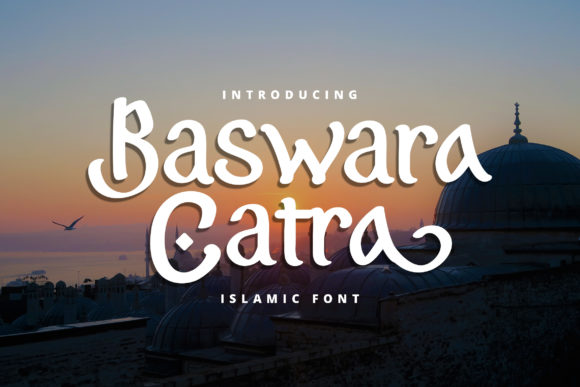
Baswara Catra Font: Elevating Small Business Branding
When I first started my small-batch candle business from my kitchen table, I thought the scent was all that mattered. I quickly learned that before a customer can smell a product, they have to fall in love with how it looks. My early labels were functional but forgettable, printed in standard system fonts that made my handmade goods look like generic craft fair items rather than premium boutique products. The turning point came when I decided to invest in better typography and discovered Baswara Catra, a flowing and unique handwritten font that completely transformed my brand’s visual identity. Choosing the right Script Handwritten typeface wasn't just an aesthetic decision; it was a strategic business move that helped me communicate quality, warmth, and authenticity before a customer ever lit a wick.
Baswara Catra for Product Packaging and Label Design
Integrating Baswara Catra into my packaging design process taught me that Fonts are not merely decorative elements but essential tools for storytelling on physical products. When designing labels for glass jars and textured paper boxes, readability and personality must coexist perfectly. This specific script font offers a delicate balance of elegance and approachability that is often missing in digital-first typefaces. For my lavender and sage collection, the flowing ligatures of Baswara Catra mimicked the organic curves of the botanicals inside, creating an immediate subconscious connection between the visual design and the product experience. Unlike rigid display fonts, this handwritten style feels personal, as if I had written each label by hand, which reinforces the artisanal value proposition crucial for small businesses competing against mass-market brands.
However, using such a distinctive typeface on packaging requires practical consideration regarding size and contrast. I found that Baswara Catra works best as the primary focal point for product names or short taglines rather than dense ingredient lists. On a three-inch round label, the intricate swashes remain legible only when given adequate breathing room and paired with high-contrast background colors. When printing on uncoated kraft paper, the ink spread can sometimes soften fine details, so testing print proofs at actual size became a non-negotiable step in my workflow. This attention to typographic detail turned simple packaging into a tactile brand touchpoint that customers frequently photograph and share, effectively turning my product labels into free user-generated content marketing.
Using Baswara Catra for Wedding Invitations and Stationery Art
Expanding my business into custom stationery required a versatile asset, and Baswara Catra proved ideal for creating gorgeous wedding invitations and beautiful stationary art that command higher price points. Clients seeking bespoke paper goods are often overwhelmed by generic template options, so offering a unique handwritten font helps differentiate my services in a saturated market. The romantic, fluid nature of this typeface lends itself naturally to formal event collateral, yet it avoids the stuffy, outdated feel of traditional calligraphy scripts. When designing invitation suites, I utilize the font’s alternate characters to create custom monograms and header treatments that feel exclusive to each couple, adding perceived value without requiring hours of custom hand-lettering.
- Versatile Ligatures: Use connecting strokes to create seamless wordmarks for couple names on invitation headers.
- Scale Variation: Pair large-scale Baswara Catra headers with small, clean sans-serif body text to maintain hierarchy and readability.
- Texture Integration: Combine the flowing letterforms with watercolor washes or gold foil stamping to enhance the luxurious feel of stationery art.
- Digital Adaptation: Ensure the font renders beautifully in both high-resolution print files and mobile-friendly RSVP websites.
The versatility of Baswara Catra extends beyond weddings to everyday stationery items like thank-you cards, gift tags, and journal covers. As a business owner, having one reliable script font that transitions seamlessly from a formal gala invitation to a casual product insert simplifies my design inventory and ensures brand consistency across diverse revenue streams. This efficiency allows me to spend less time searching for new typefaces and more time focusing on client relationships and creative execution.
Creating Eye-Catching Social Media Graphics with Baswara Catra
In the digital marketplace, Baswara Catra serves as a powerful hook for creating eye-catching social media graphics that stop the scroll in crowded feeds. Typography on Instagram and Pinterest functions differently than on paper; it must be instantly recognizable even at thumbnail size. I use this script font primarily for overlay text on lifestyle photography and carousel cover slides where emotional resonance drives engagement. The organic flow of the letters adds a human element to digital content that polished, geometric fonts often lack, helping my brand feel relatable and trustworthy in an algorithm-driven environment. When used strategically in Reels covers or Story templates, the font acts as a visual signature that regular followers begin to associate with my content before they even read the caption.
Readability on mobile screens remains the top priority when applying Baswara Catra to social assets. I avoid placing the script over busy image backgrounds without a subtle drop shadow or solid color block behind the text to ensure accessibility. While the font is stunning, it is not designed for long-form captions or critical information like sale dates or pricing; those elements stay in a clean, modern sans-serif to prevent user frustration. By reserving Baswara Catra for emotive headlines and brand affirmations, I maintain a professional balance between artistic expression and commercial clarity. This disciplined approach to digital typography has improved my click-through rates because audiences can instantly parse the message while still feeling the emotional tone of the brand.
Pairing Baswara Catra with Modern Typography for Brand Consistency
Achieving a polished brand identity means understanding how Baswara Catra interacts with other Fonts in your design system to create cohesive visuals. A standalone script can feel overwhelming or dated if not anchored by supportive typography. In my own branding, I pair this flowing handwritten font with a minimalist geometric sans-serif for body copy and website navigation. The contrast between the expressive curves of Baswara Catra and the structured stability of a modern sans-serif creates a dynamic visual tension that feels both contemporary and timeless. This pairing strategy ensures that my business materials look professionally designed rather than DIY, building trust with potential customers who equate good design with product quality.